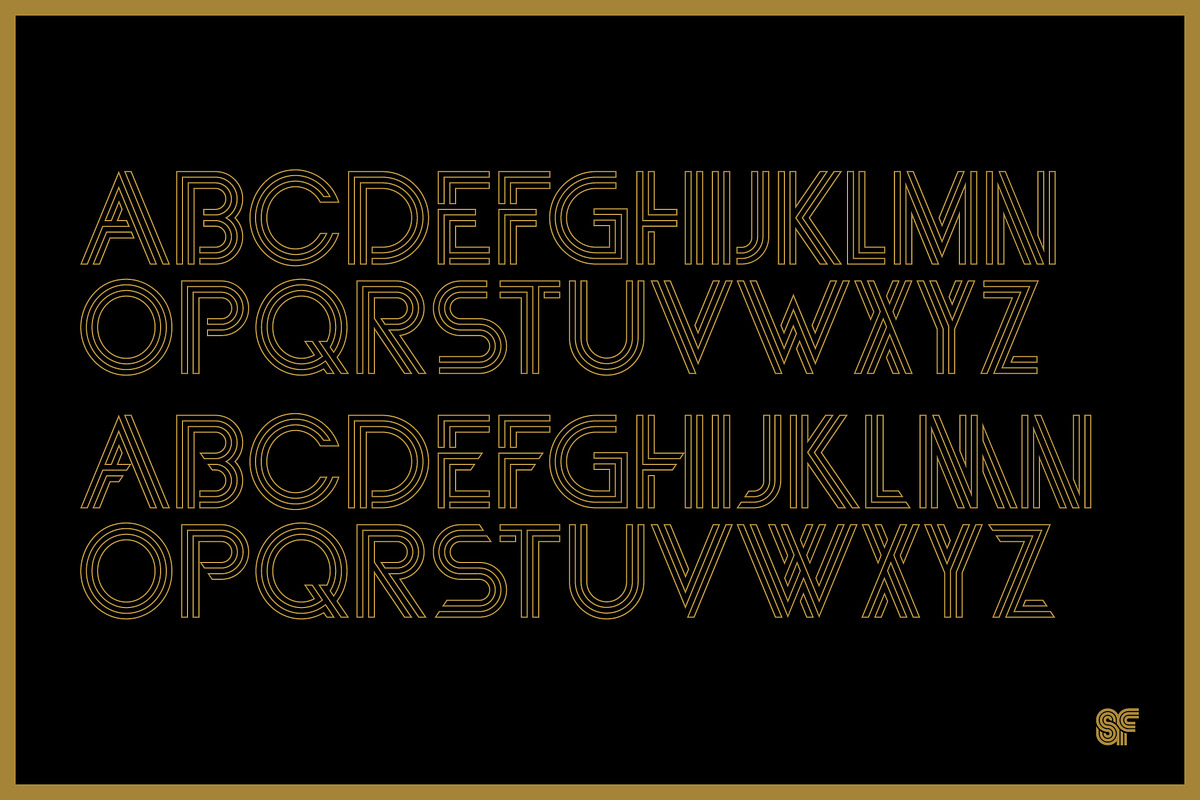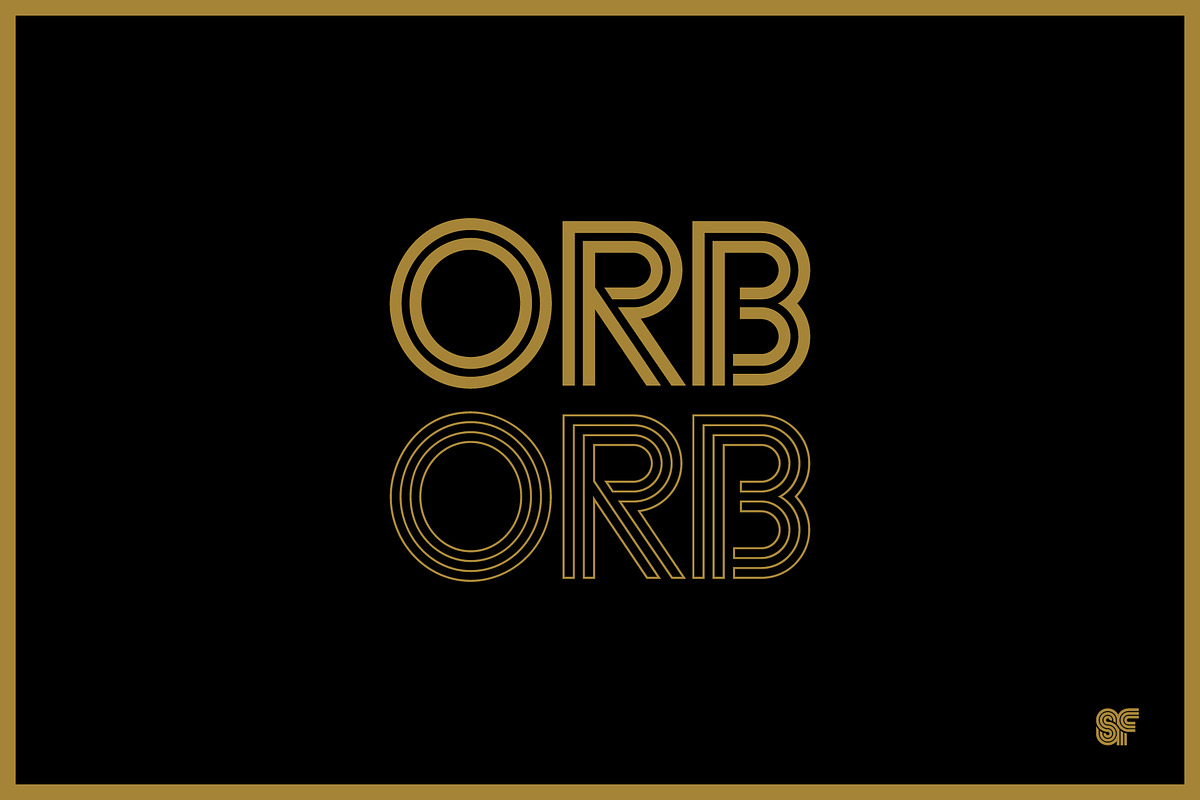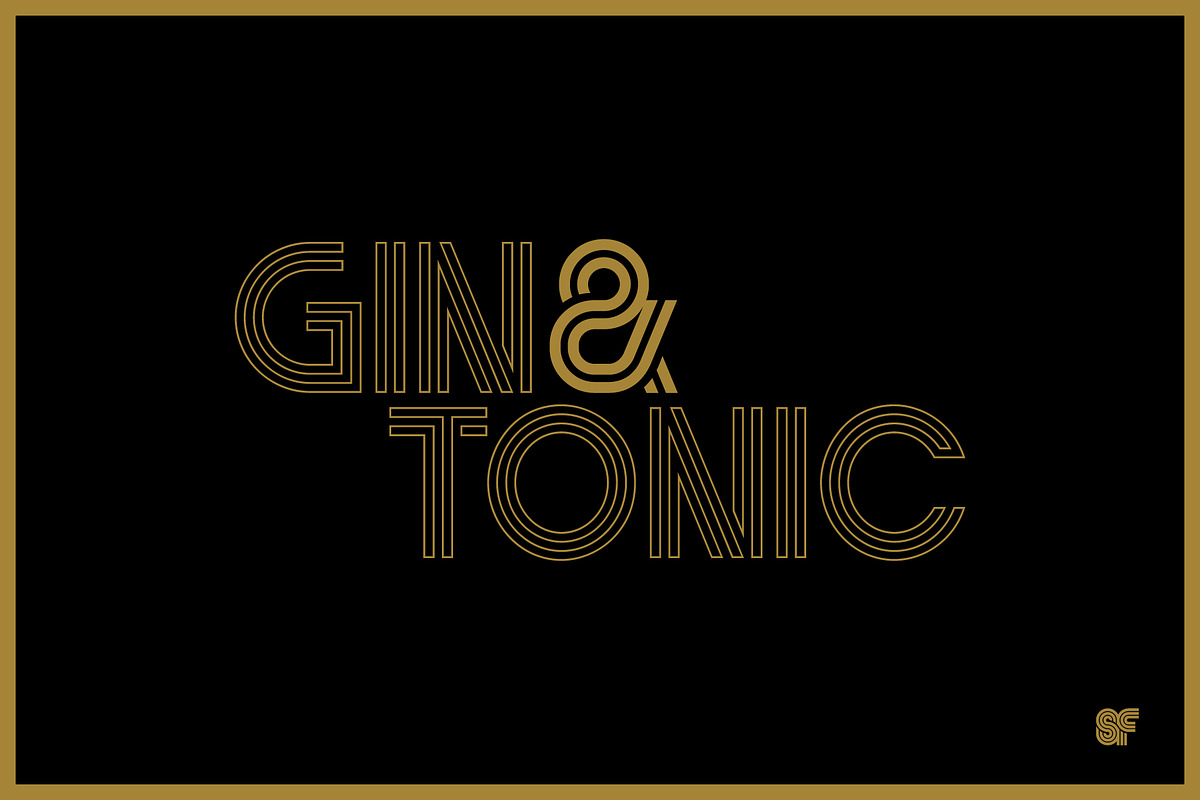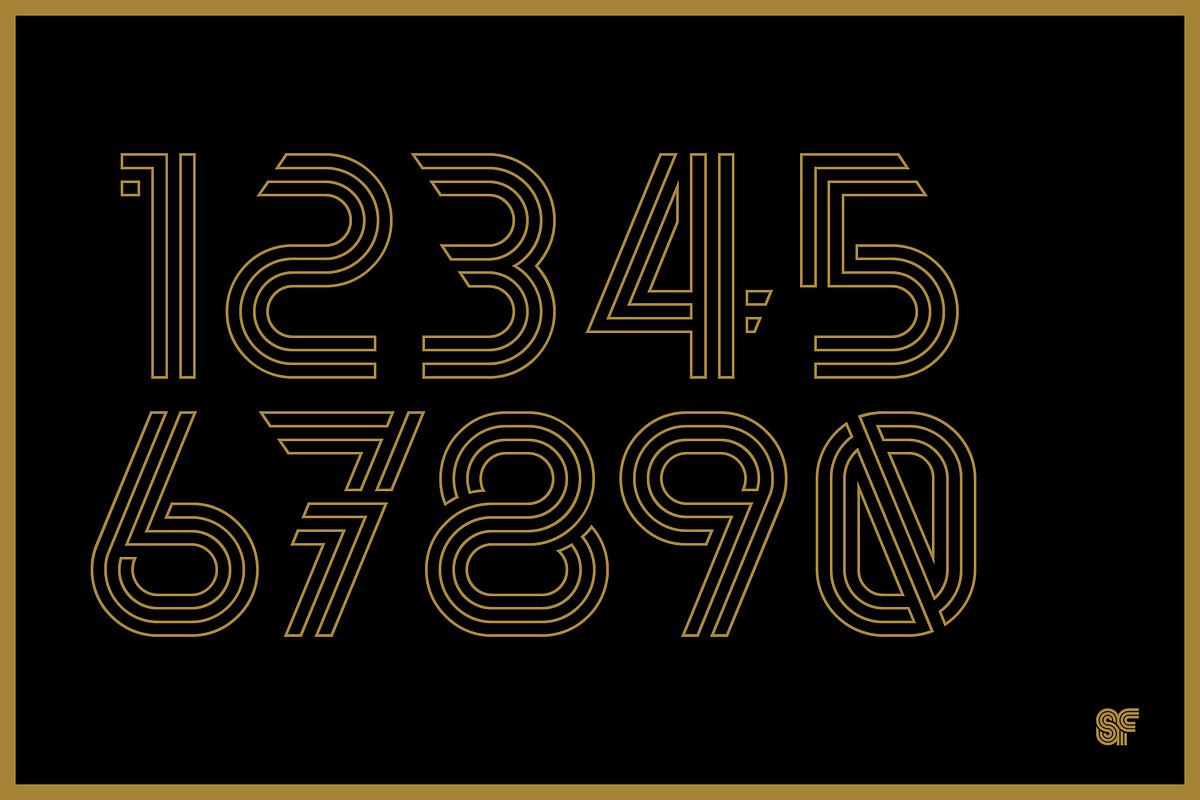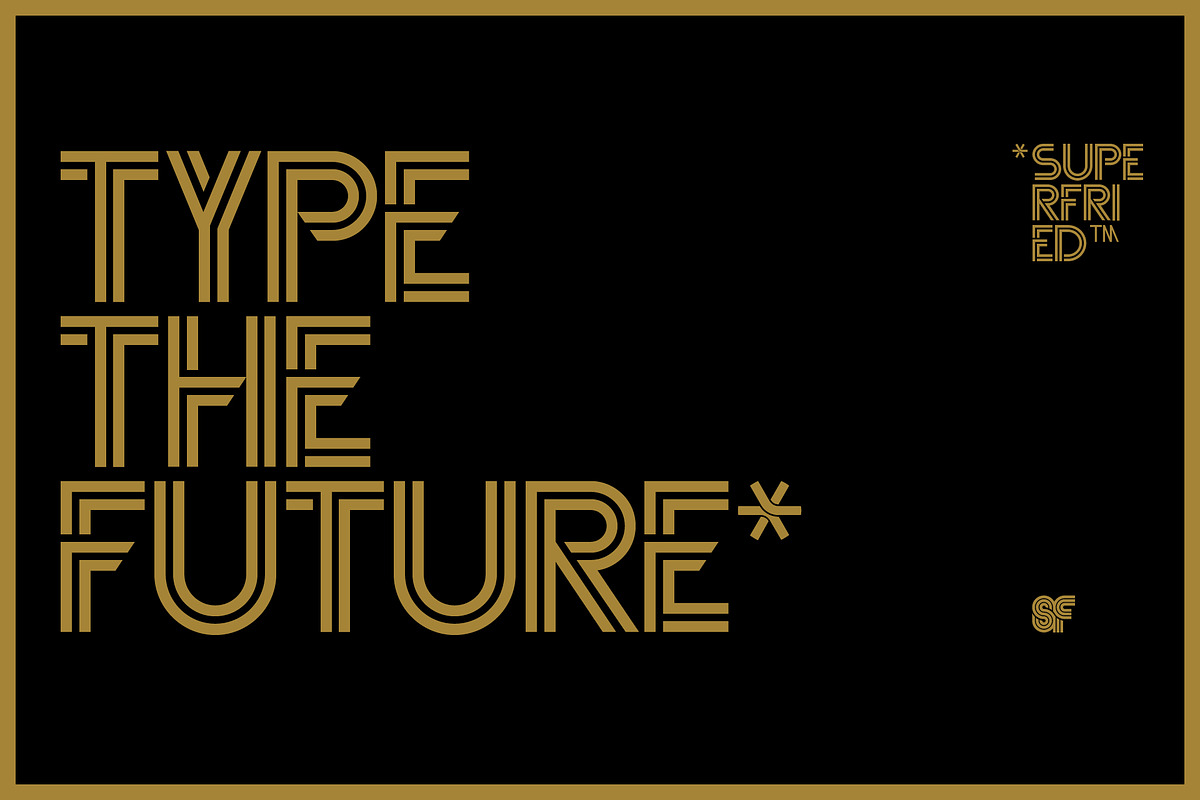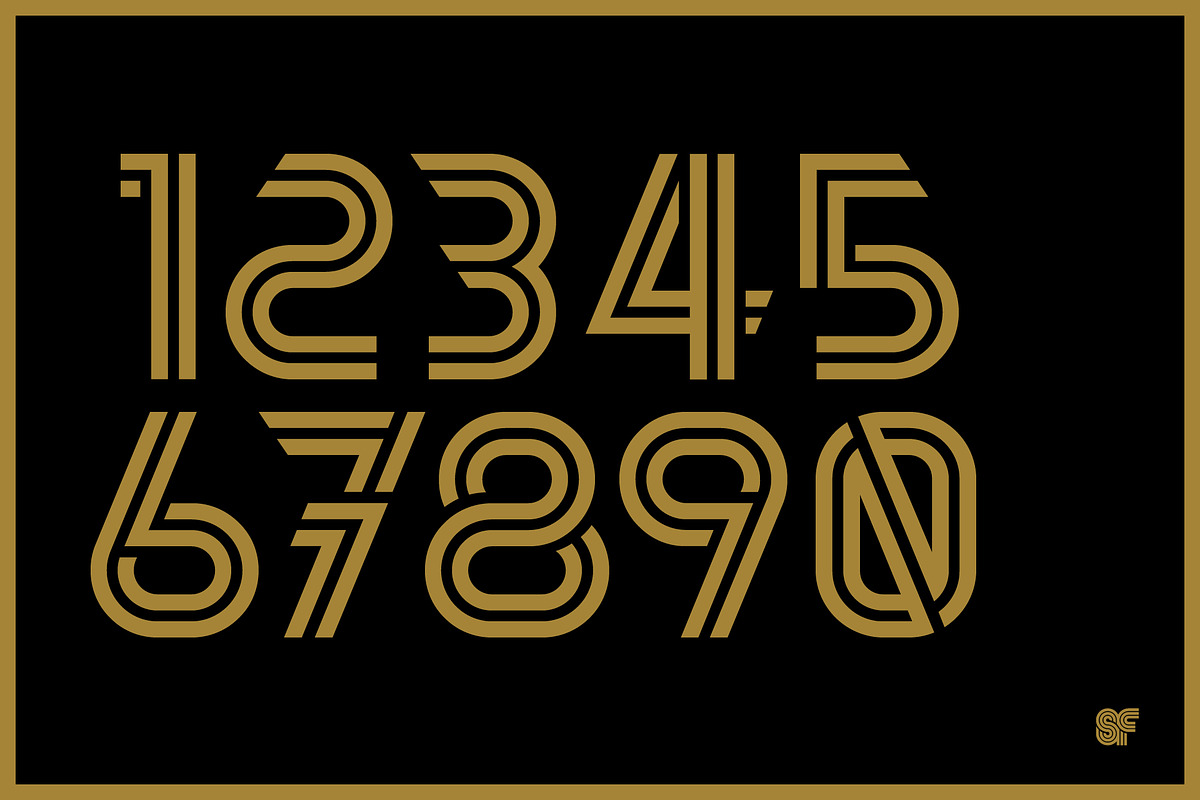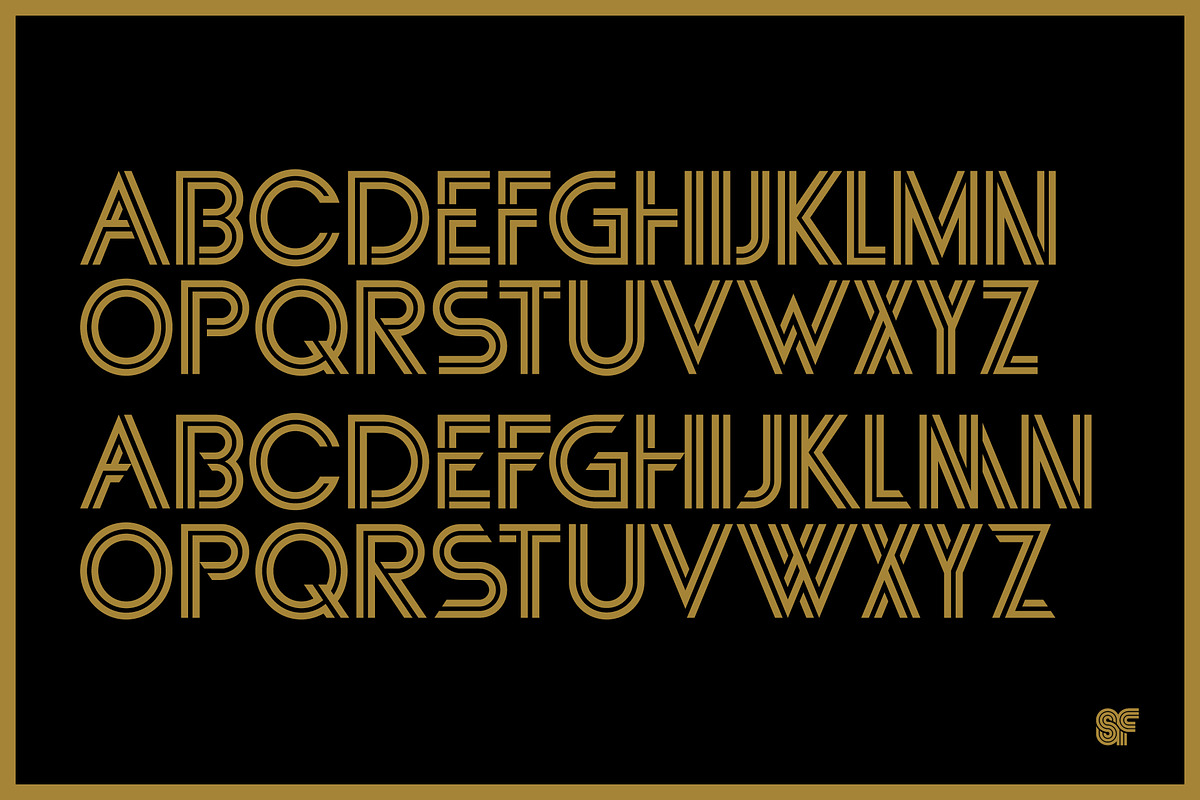
ORB | Display 2 Fonts + 2 Styles
Orb was originally designed in 2015 by Superfried. This elegant geometric uppercase display font has been meticulously re-drawn and enhanced.
Orb includes two distinct weights: display and outline. For the remaster each weight now includes a secondary character set that can be activated using the shift key, offering greater versatility for your projects.
Each glyph is thoughtfully constructed from two concentric paths, showcasing intricate interactions and stylish angled incisions that contribute to its unique aesthetic. Orb boasts a total of 266 glyphs and delivers creative flexibility in branding, web design, and editorial projects.
Elevate your typography with Orb's striking visual appeal and functional design.